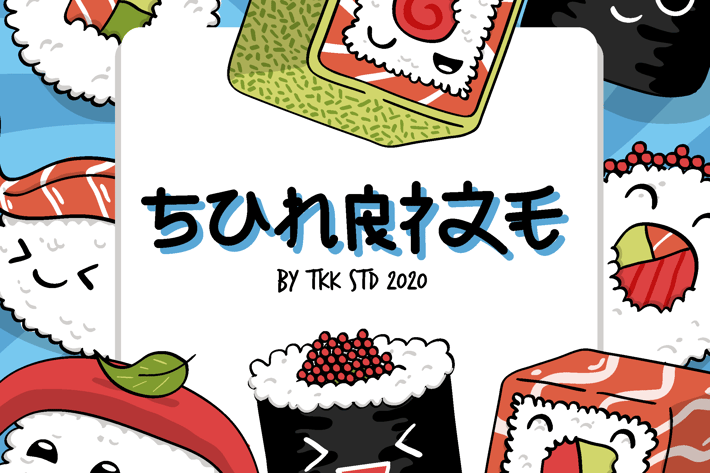
SUNRIZE - faux Japanese font
SUNRIZE - Faux Japanese Font
SUNRIZE is a kawaii-inspired bubble display font with soft curves, rounded terminals, and a delightfully bouncy structure that mirrors the charm of hand-drawn hiragana and katakana letterforms. Its playful and approachable vibe brings an expressive personality to any layout. Designed with an energetic rhythm and minimal stroke contrast, it’s highly legible yet full of quirky charm. SUNRIZE fits beautifully in Japanese pop culture-themed designs, children’s products, and anything that calls for adorable, high-energy visual language.
Whether you're designing anime-themed packaging, toy labels, Japanese snack branding, or a mobile game UI, SUNRIZE brings an irresistible blend of joy and cuteness. It evokes the feel of friendly mascots, handwritten signage, and retro cartoon intros, making it a great match for creators who want their audience to feel engaged, delighted, and curious from the first glance.
✦ Inspired by Japanese kawaii culture and character design
✦ Soft geometric strokes with consistent roundness and bubbly flair
✦ Works equally well in packaging, editorial layouts, and mobile apps
✦ Easy to combine with cute illustrations or mascots
✦ Perfect balance between personality and readability